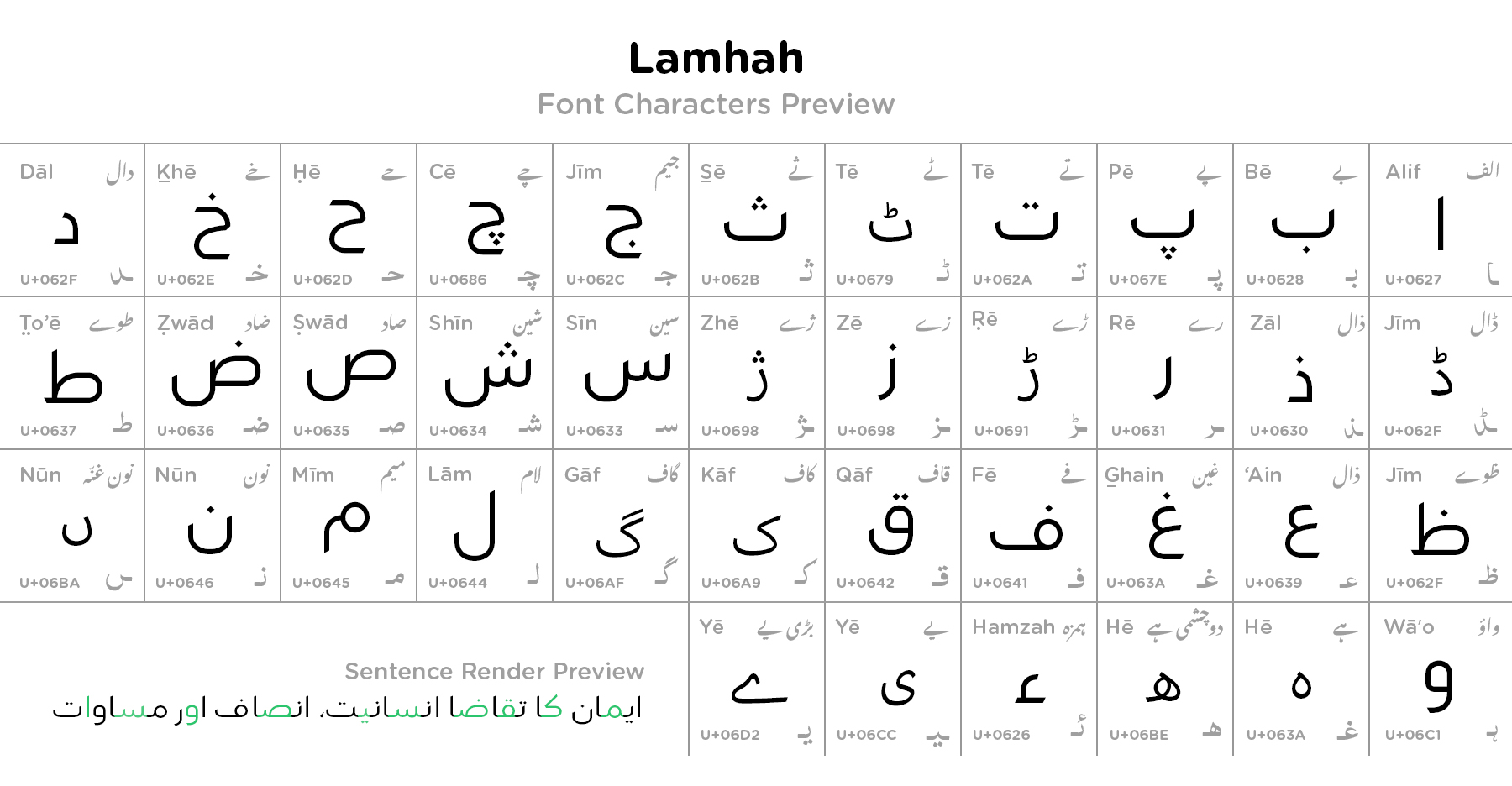
Lamhah is a modern sharp Arabic typeface designed by Mostafa El Abasiry. The typeface is based on the traditional Naskh script, but it has been given a modern twist. It features active letterforms with sharp edges, making it suitable for a variety of modern applications, including web, print, and mobile. The sharp edges and consistent weight of the letterforms make Lamhah easy to read, even at small sizes. It contains an extensive character set with a generous glyph count of 729, providing enough room for design purposes. The typeface comes in three weights to cater to various graphic design needs. These may include: